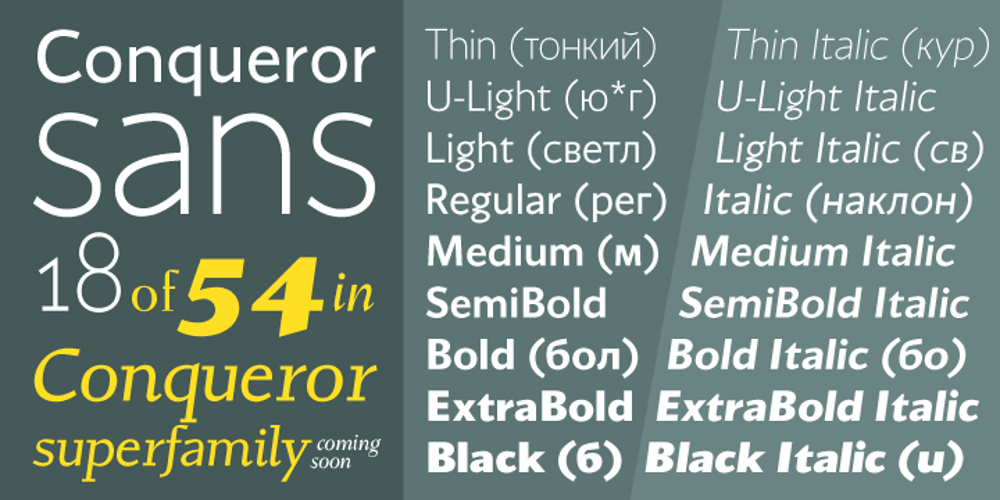
Conqueror Sans Font Family was designed by Yuri Gordon and published by Letterhead Studio-YG. Conqueror Sans contains 18 styles and family package options. This sanserif has 18 faces from Light to the Black Italic. Conqueror Sans keeps the vigorous design peculiar to all members of this family, but at the same time it is more neutral, than its having serifs relatives.